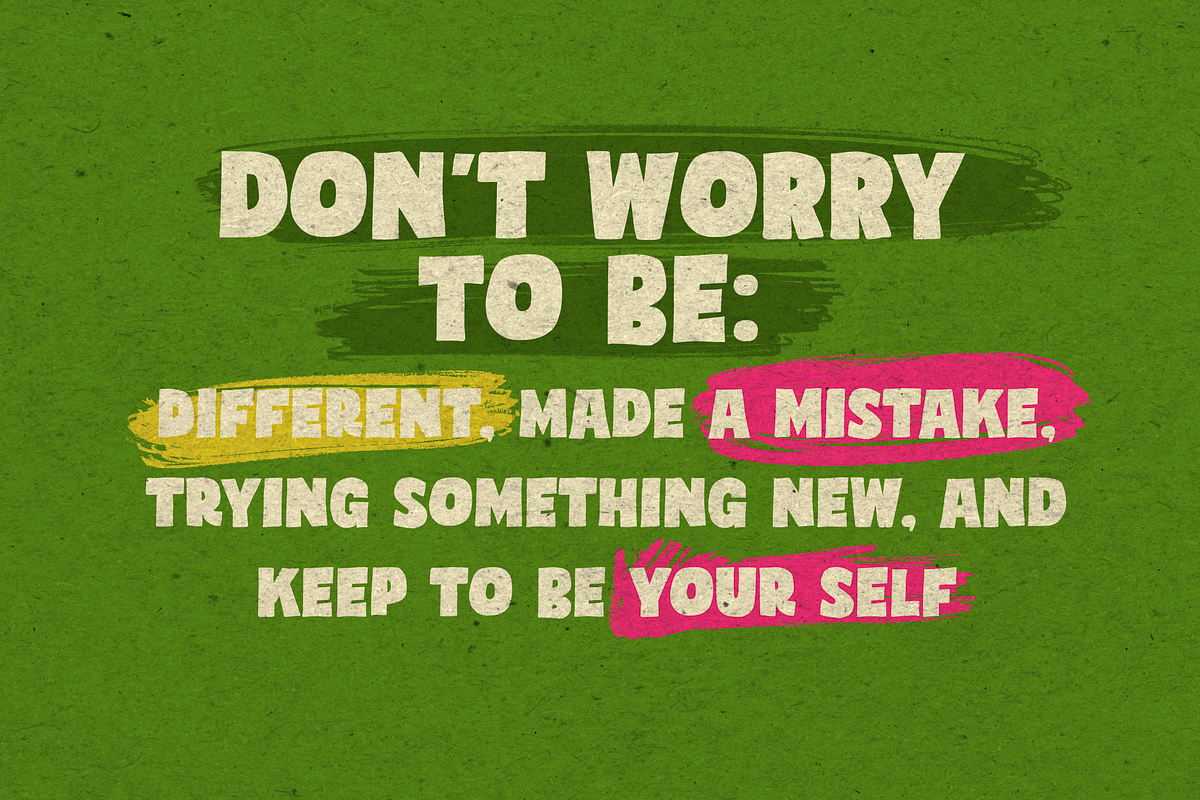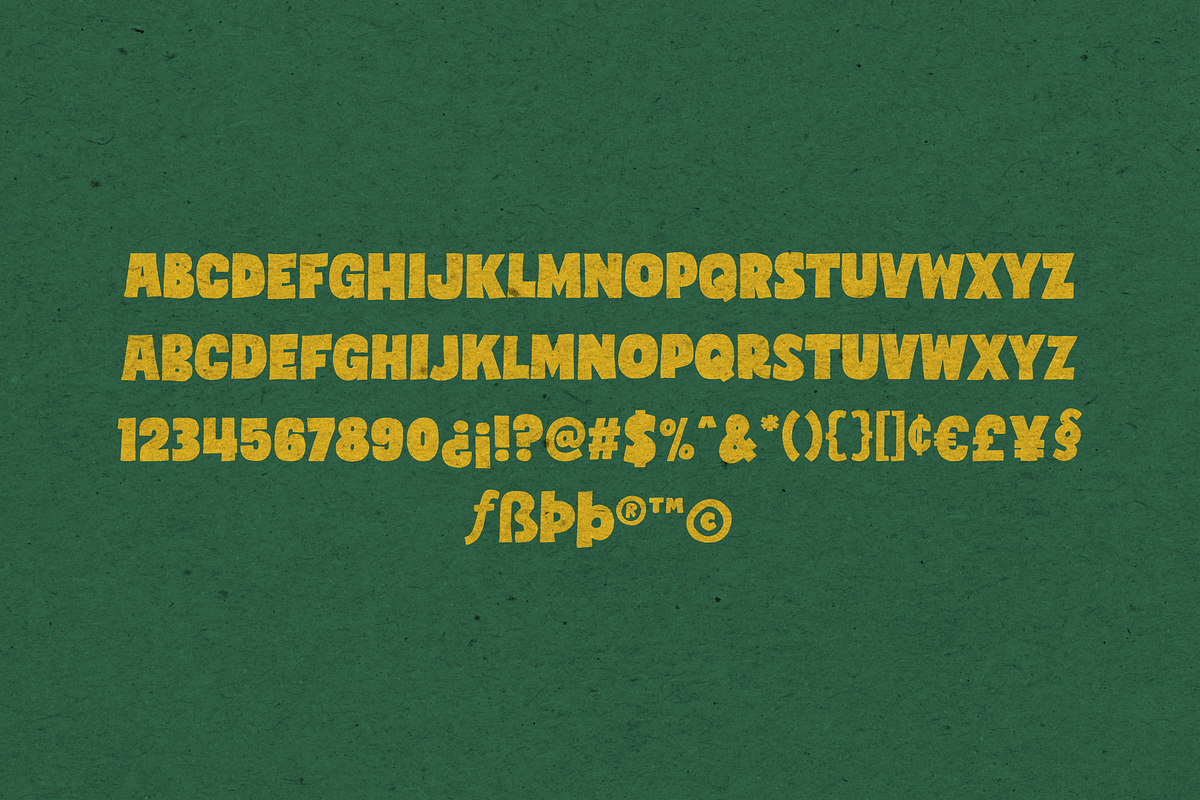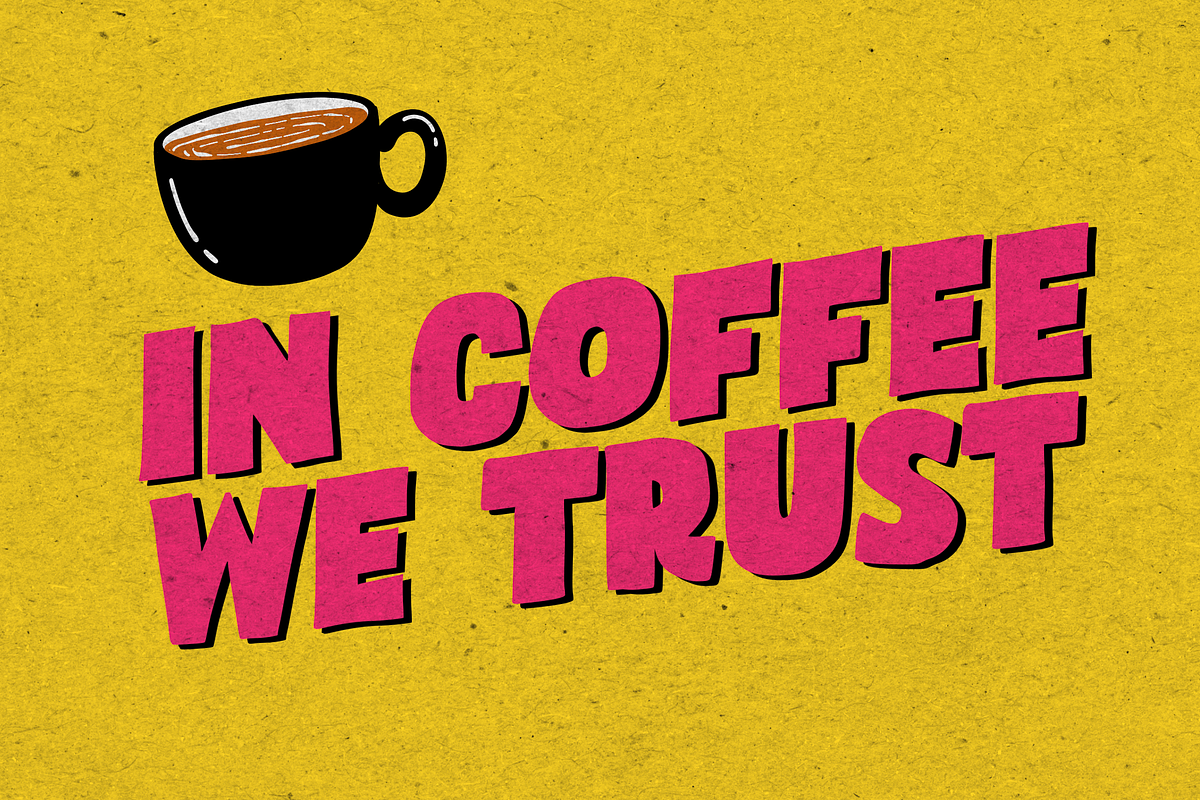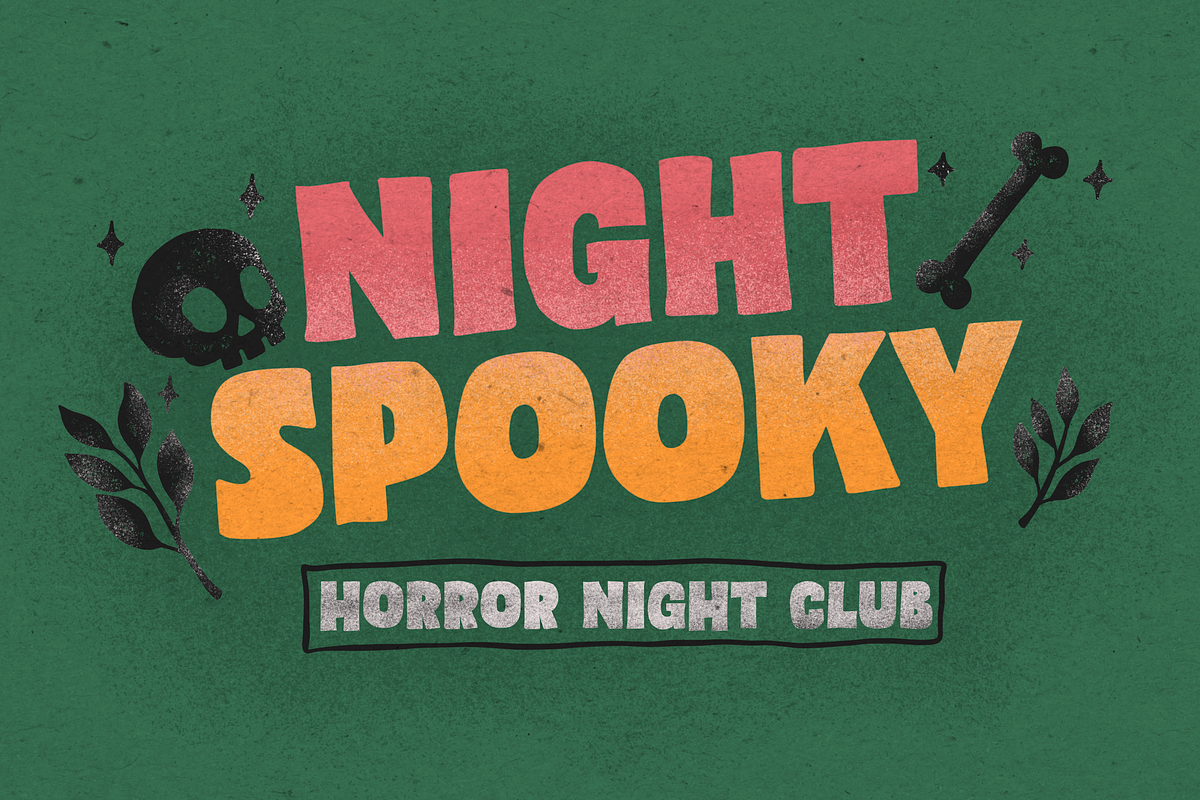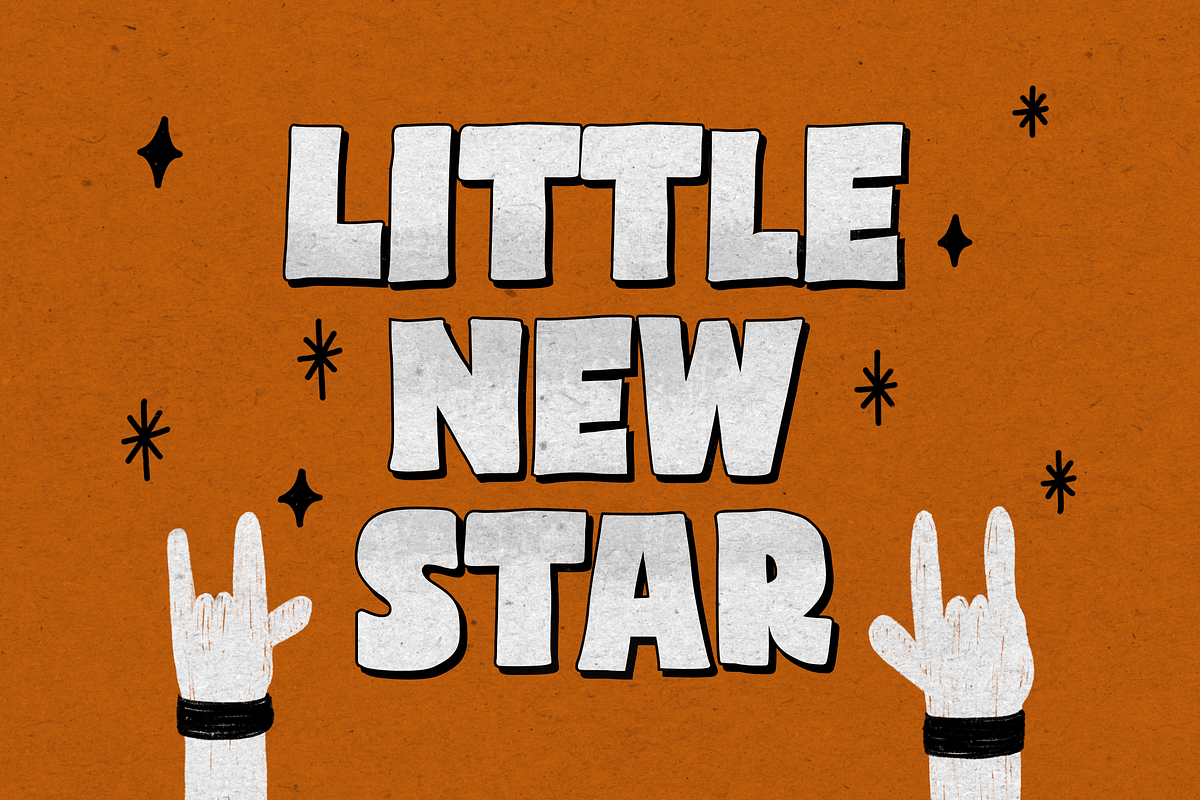
Intricks Typeface Rough
Intricks Font Rough good for quotes, posters, social media post, greeting cards, playful branding, and more !
- All caps
- Numeral
- Punctuations